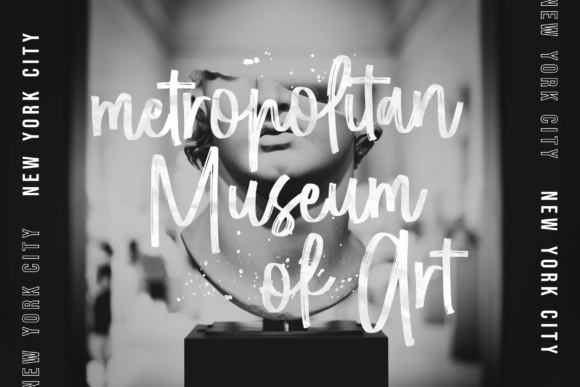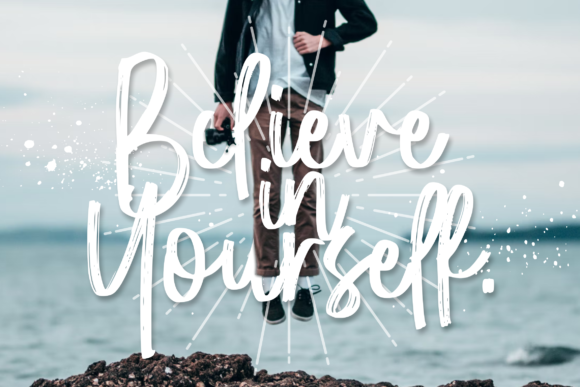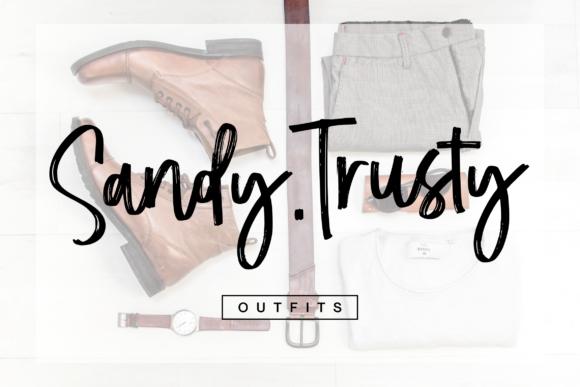
Introduction to Pathway Artistry Font
As a designer, have you ever stumbled upon the perfect font that elevates your creative project to new heights? It’s that ‘aha’ moment when everything falls into place, and your vision is finally brought to life. For many designers, this moment is what drives them to push the boundaries of their craft. One such font that has been making waves in the design community is the Pathway Artistry Font, a beautifully crafted, brushed, and chic script font that is perfect for a wide range of applications.
With its elegant and sophisticated design, the Pathway Artistry Font is an invaluable resource for designers looking to add a touch of class to their work. Whether you’re working on a product packaging project, creating a magazine cover, or simply need a font to express your words above a transparent background, this font is sure to deliver. And the best part? It’s available for free download, making it a valuable addition to any designer’s toolkit.
- The unique, artistic design of the Pathway Artistry Font makes it a perfect choice for creative projects that require a touch of elegance and sophistication.
Honest Review: Pathway Artistry Font
I recently had the chance to work with the Pathway Artistry Font and I must say it’s been a game-changer for my creative project. ✨ The font is perfect for any design resource that requires a touch of elegance and sophistication. Its high quality is evident in the way it’s designed, making it a great addition to any design portfolio.
One of the things that stood out to me about the Pathway Artistry Font is its versatility. It’s great for both digital and print projects, and it’s easy to use with a transparent background. This makes it a fantastic resource for designers who need a font that can adapt to any design situation.
- Perfect for creative projects that require a touch of elegance and sophistication
However, there are a few limitations to the Pathway Artistry Font. ⚠️ The font is not available in as many languages as I would have liked, which can be a problem for designers who need to work with clients from around the world. Additionally, the font is not as customizable as some other fonts on the market.
Overall, I’m really impressed with the Pathway Artistry Font. It’s a high-quality, versatile font that’s perfect for any design project. I would definitely recommend it to any designer looking for a reliable and stylish font.
The Pathway Artistry Font is ideal for use in a variety of creative projects, including brochures, flyers, business cards, and social media graphics. Its high-quality design and transparent background make it a popular choice among designers.